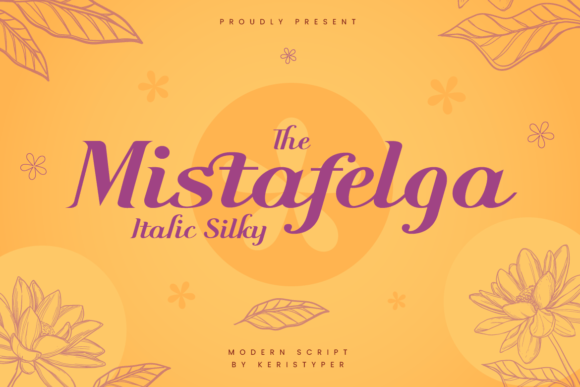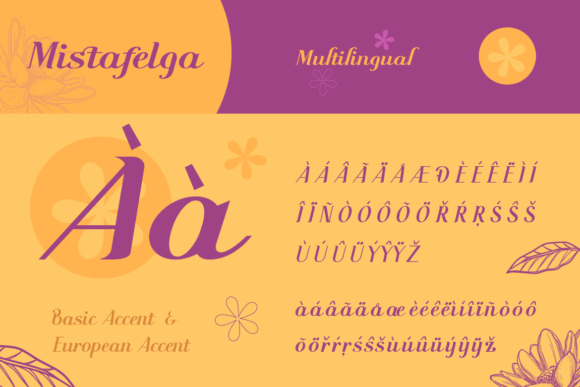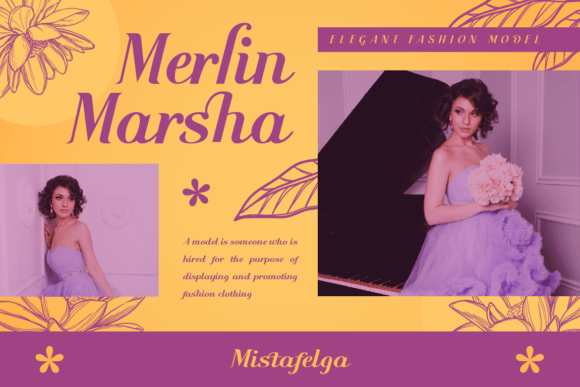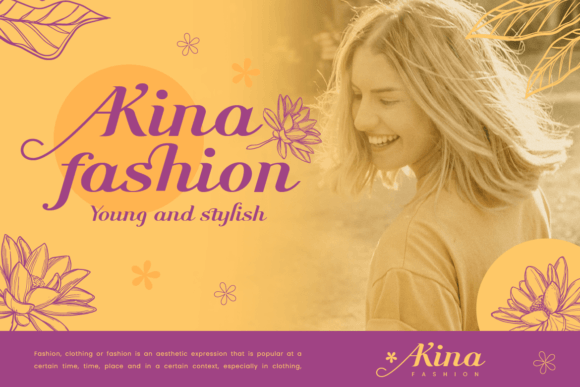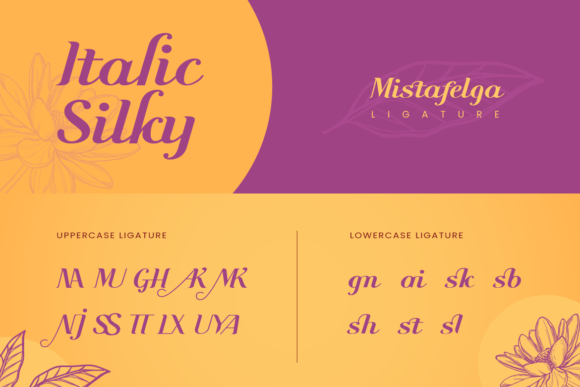
About Mistafelga Font
Mistafelga is an elegant, silky handwritten script font designed for editorial use and inspired by calligraphy of the middle century. This font is good for logo design, social media, or anything that needs a stylish touch.